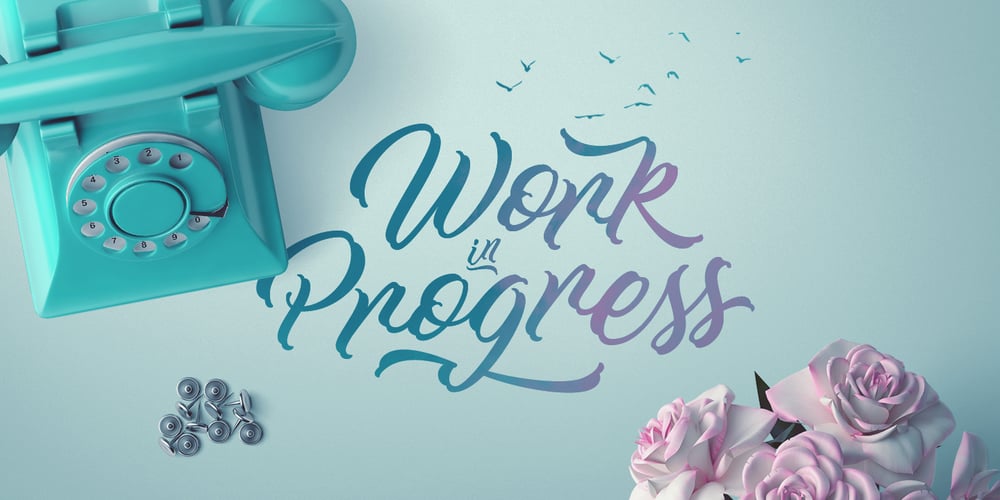
Work In Progress
Work In Progress font
Work In Progress Font Family was designed by Clément Nicolle and published by StereoType Fonts. Work In Progress contains 1 styles and family package options. Work In Progress is a smooth script font with a very specific style of connected curves. It brings a unique curly style with the possibility to create dynamic dancing words with it’s ligatures and alternates.